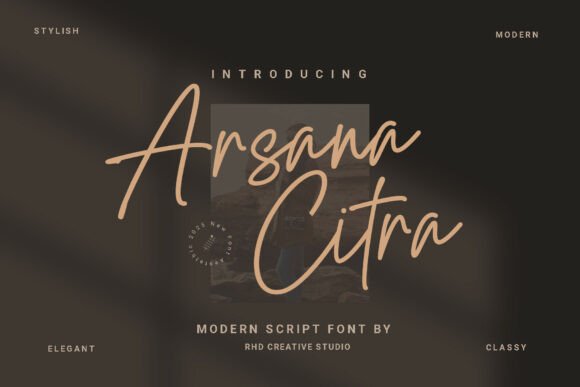
Introducing Arsana Citra Font: Elevate Your Designs with Elegance and Sophistication
In the world of typography, fonts play a crucial role in conveying the tone and personality of a brand, product, or message. For designers and crafters seeking to add a touch of luxury and sophistication to their work, Arsana Citra Font is an exceptional choice. This stylish and elegant handwritten script font is designed to bring a chic, modern feel to various design projects, including branding, fashion editorials, wedding stationery, and Instagram quotes.
The Characteristics of Arsana Citra Font
Arsana Citra Font boasts fluid strokes that dance across the page, exuding a sense of elegance and refinement. Its modern feel makes it perfect for designers looking to create a fresh and contemporary look. The font’s chic appearance is characterized by its clean lines, subtle curves, and sophisticated letterforms, which work harmoniously to create a visually stunning effect.
Arsana Citra Font is a versatile typeface that can be used in a wide range of design applications. Some of the ideal uses for this font include:
- Branding: Add a touch of luxury and sophistication to your brand’s identity with Arsana Citra Font. Its elegant appearance makes it perfect for high-end brands, fashion labels, and lifestyle products.
- Fashion Editorials: Elevate your fashion editorials with the font’s chic and modern feel. Arsana Citra Font is ideal for creating stylish and eye-catching headlines, titles, and captions.
- Wedding Stationery: Make your wedding stationery stand out with the font’s elegant and refined appearance. Arsana Citra Font is perfect for creating beautiful wedding invitations, save-the-date cards, and other wedding-related materials.
- Instagram Quotes: Add a touch of sophistication to your Instagram quotes with Arsana Citra Font. Its modern feel and elegant appearance make it perfect for creating visually stunning and engaging content.
Why Choose Arsana Citra Font?
With so many fonts available, why choose Arsana Citra Font? Here are just a few reasons why this font stands out:
- Unique and Exclusive: Arsana Citra Font offers a unique and exclusive look that sets it apart from other fonts. Its elegant appearance and modern feel make it a standout choice for designers and crafters.
- High-Quality Design: The font is designed with high-quality craftsmanship, ensuring that it looks stunning in any design application.
- Easy to Read: Despite its elegant appearance, Arsana Citra Font is easy to read, making it perfect for body text and captions.
- Versatile: The font is versatile and can be used in a wide range of design applications, from branding and fashion editorials to wedding stationery and Instagram quotes.
Tips for Using Arsana Citra Font
To get the most out of Arsana Citra Font, here are some tips for using it effectively:
- Pair it with a Sans-Serif Font: Pair Arsana Citra Font with a sans-serif font to create a beautiful contrast between the elegant script font and the clean, modern sans-serif font.
- Use it for Headlines and Titles: Use Arsana Citra Font for headlines and titles to add a touch of luxury and sophistication to your design.
- Experiment with Colors: Experiment with different colors to find the perfect match for your design. Arsana Citra Font looks stunning in a range of colors, from bold and bright to soft and pastel.
| Font Name | Arsana Citra Font |
In conclusion, Arsana Citra Font is an exceptional choice for designers and crafters seeking to add a touch of luxury and sophistication to their work. Its elegant appearance, modern feel, and versatility make it perfect for a wide range of design applications. Whether you’re creating branding materials, fashion editorials, wedding stationery, or Instagram quotes, Arsana Citra Font is sure to elevate your designs and leave a lasting impression.